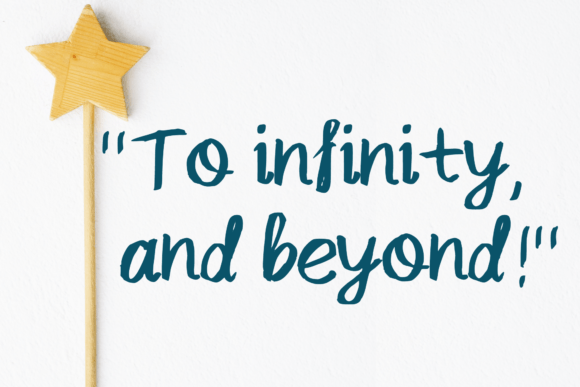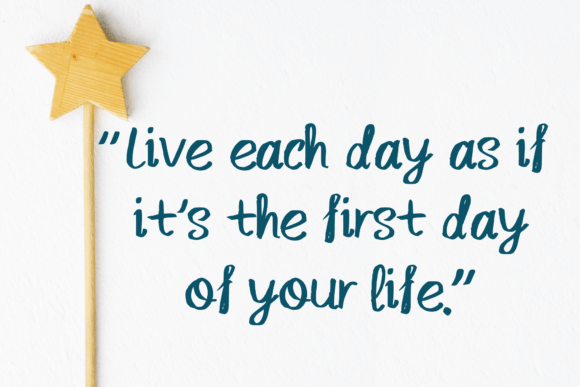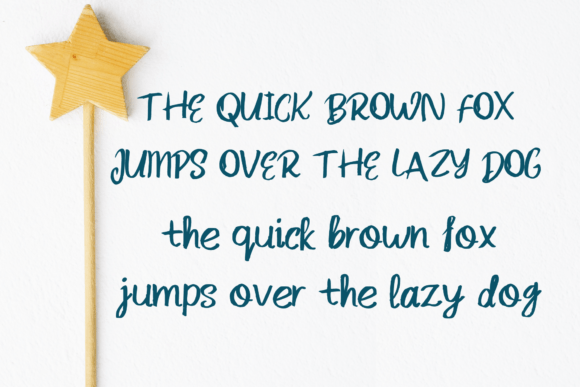
Have you ever sat down with a blank piece of paper, a pen, and a spark of inspiration, only to watch your ideas come to life in a flurry of scribbles and doodles? That’s exactly what happened when the designers behind the Bisney Font first started experimenting with its natural and beautiful handwritten style.
The result is a versatile font that’s perfect for anything from t-shirts and kids’ book designs to greeting cards and posters. Whether you’re looking to add a casual touch to your designs or create something truly unique, the Bisney Font is an invaluable tool for any designer.
With its incredibly versatile style, the Bisney Font is a must-have for anyone looking to add a personal touch to their creative projects. Its value lies in its ability to evoke a sense of warmth and approachability, making it perfect for a wide range of applications.
Bisney Font Key Features
- Font Family: Bisney Font is a unique, hand-drawn sans-serif font with a playful and whimsical feel.
- Character Set: Includes a wide range of characters, including uppercase and lowercase letters, numbers, punctuation, and special characters.
- Unique Characteristics: Features a distinctive, hand-drawn style with varying line widths and subtle imperfections, giving it a unique and artistic feel.
Bisney Font Review
I was excited to dive into the world of Bisney Font, and I must say, it has some unique charms. ✨ First of all, the font’s playful, whimsical feel is infectious. It’s perfect for projects that need a touch of childlike wonder. The varying line widths and creative letterforms add a delightful texture to any design.
Another great aspect of Bisney Font is its adaptability. It works beautifully for logos, headings, and even body text. The font’s subtle irregularities make it stand out from more traditional sans-serif fonts, without being too overwhelming.
While Bisney Font is a solid choice for many projects, there are a few areas where it falls short. ⚠️ For one, the font’s readability can be a concern, especially at smaller font sizes. The varying line widths and creative letterforms can make it harder to read, particularly for users with visual impairments.
- Readability issues at smaller font sizes
- May not be suitable for long blocks of text
Overall, I’d say Bisney Font is a great addition to any designer’s toolkit. It’s perfect for projects that need a touch of whimsy and playfulness. Just be mindful of its limitations and use it accordingly.
The Bisney Font is ideal for:
- Designing children’s books and educational materials.
- Creating playful and whimsical branding materials.
- Designing invitations and party materials.